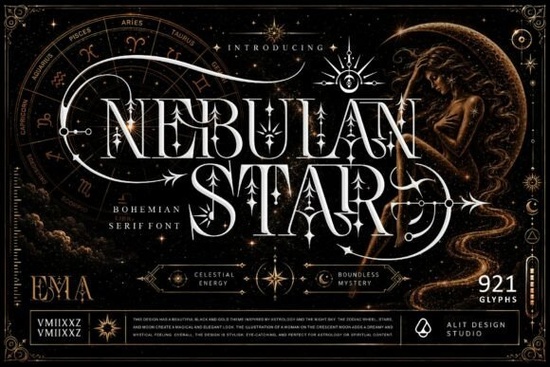
If you’re hunting for a serif with a soulful, celestial twist, the Nebulan Star typeface font delivers that rare mix of refined bohemian elegance and astrological mystique. Its high-contrast letterforms are wrapped in sweeping, astrolabe-inspired swashes, starburst spurs, and sharp arrow terminals. The result feels like a page torn from a vintage star chart, reinterpreted for modern luxury brands and visual storytellers.
What style does Nebulan Star bring to a project?
This is not a quiet, neutral serif. Nebulan Star leans into ornamentation without becoming chaotic. The strokes alternate between delicate hairlines and plush, weighted stems, while the decorative glyphs moons, sunbursts, and celestial arrows add narrative. It’s a display font meant for moments that need drama and a hint of the metaphysical. Think boutique apothecary labels, tarot card backdrops, or chapter openers in a fantasy novel. The font’s personality is both whimsical and authoritative, making it surprisingly flexible for many handcrafted brand identities.
Who is this font best suited for?
Independent creators and small business owners in the spiritual, wellness, and literary spaces will feel most at home with Nebulan Star. Tarot readers, astrologers, holistic health coaches, and indie fantasy authors can use it to build a consistent visual voice. Print-on-demand designers will appreciate how well it translates onto physical products without losing its fine details. Even if your brand isn’t overtly mystical, the font’s fairy-tale charm works for boho wedding invitations, artisan jewelry hang tags, or seasonal social media reels where you want a soft, enchanted mood.
How to use Nebulan Star without overwhelming a design
Because the letterforms are highly decorative, Nebulan Star shines brightest when used sparingly on headlines, pull quotes, or a single focal word. For body copy, pair it with a clean, simple sans-serif or a gentle rounded typeface. If your layout needs a friendly, approachable contrast, you might sample a marshmallow-inspired display font for subheadings. That cloud-like softness can balance the sharper, celestial edges of Nebulan Star nicely. For projects that call for a completely different energy say, a gritty streetwear vibe you could also pull in a street writing font on a secondary element, creating an intentional clash of magic and urban texture.
What kind of alternates and decorative elements does it include?
Nebulan Star comes packed with stylistic alternates, swashes, and ligatures that let you customize each word’s shape. Many of the uppercase forms carry exaggerated loops and swirls, while the lowercase holds a tighter, more readable structure. To access these, you’ll typically use the OpenType panel in programs like Adobe Illustrator, Photoshop, or Procreate. A quick tip: always preview your chosen alternate in the full word before committing, because some swashes may crowd surrounding letters. The font also includes arrow and starburst ornaments that work beautifully as separators or small decorative accents.
Where does Nebulan Star shine the brightest?
Its sweet spot is any project that wants to tell a story beyond the words themselves. Book cover designs for high-fantasy or mythic fiction gain an instant visual hook with this typeface. Holistic wellness logos, particularly for businesses focusing on reiki, crystal healing, or meditation, feel instantly authentic and handmade. For social media managers, using Nebulan Star in quote graphics or story highlights adds a signature look without heavy photo editing. While a sports varsity font excels at team spirit merchandise, Nebulan Star thrives in spaces where emotion, mystery, and elegance matter more than raw energy.
Can Nebulan Star work for print-on-demand products?
Yes, with a few caveats. Because the font’s delicate strokes contrast sharply with thick stems, you’ll want to test sizes on physical mockups. For t-shirts and tote bags, aim for larger point sizes at least 36pt to keep the wispy terminals from disappearing. On canvas prints, notebooks, or oracle decks, the details hold up well even at moderate sizes. Before uploading to a POD platform, convert your text to outlines and check how the ink or embroidery path might alter finer details. For designs that need a bolder, more chunky presence, a strong bubble font might handle high-wear items better, but Nebulan Star is perfect for premium, gift-oriented products.
How to pair Nebulan Star with other typefaces
Pairing it successfully comes down to creating a visual hierarchy where Nebulan Star is the star performer. For an old-world, literary feel, set it alongside an elegant serif such as the Homegoing serif, which shares a historical sensitivity but stays grounded and readable. For a modern boho brand, try combining it with a minimalist geometric sans-serif, letting the decorative font do the talking on the logo while keeping taglines crisp. Avoid pairing it with another high-ornament font two strong personalities can drown each other out.
Quick checklist before you start:
- Preview all alternates and swashes using the glyphs panel some combinations may need manual kerning tweaks.
- Test the font at multiple print sizes, especially if using gold foil or embroidery mockups.
- Pair with a clean sans-serif or a gentle rounded font for readability.
- Use Nebulan Star as a focal element, not wall-to-wall text.
- Check that your project’s mood aligns with the font’s mystical, bohemian personality.